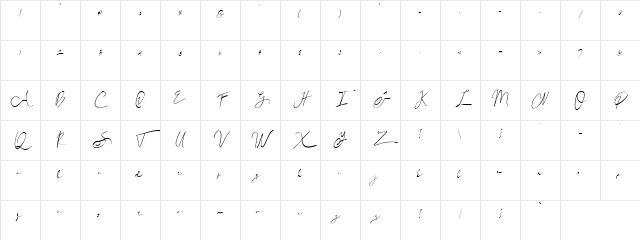
Auggie Devothy Demo Regular Free Font
Auggie Devothy Demo Regular
Foundry: Suandana Ipandemade
Designer: Suandana Ipandemade
Design Context for Auggie Devothy Demo
Auggie Devothy Demo is a composed and adaptable typeface that performs quietly and consistently across a wide range of design contexts.